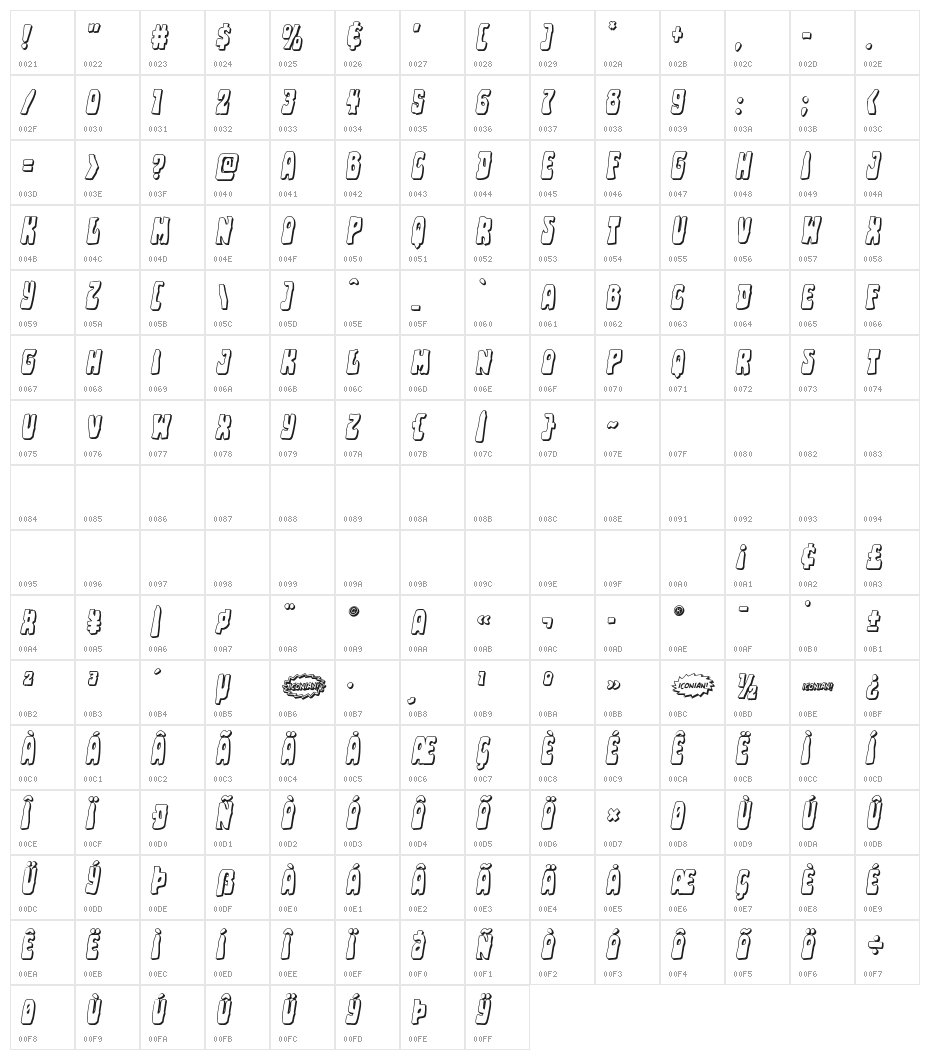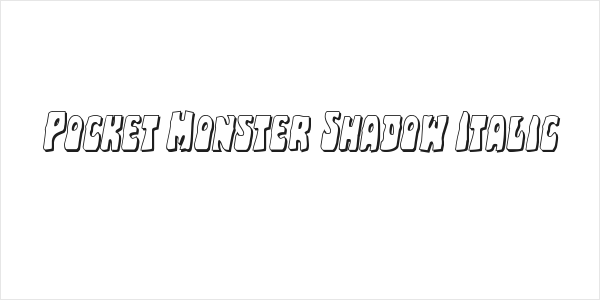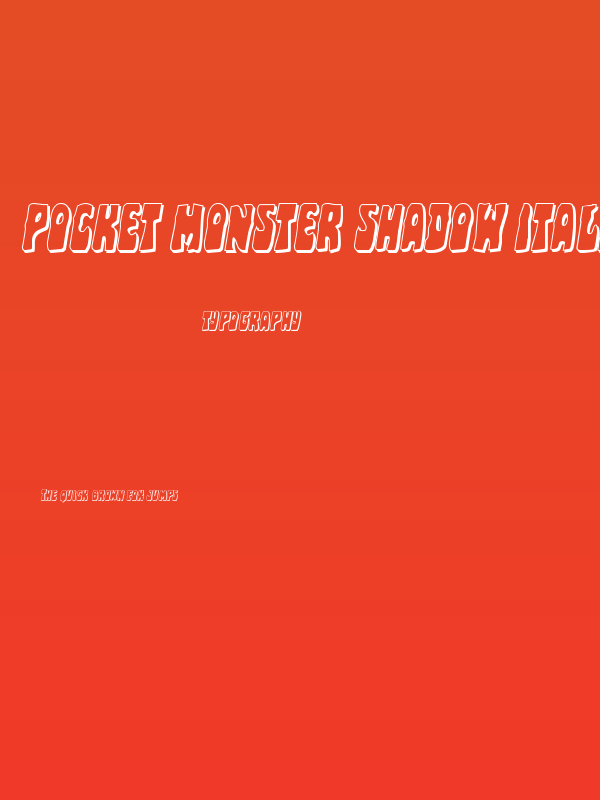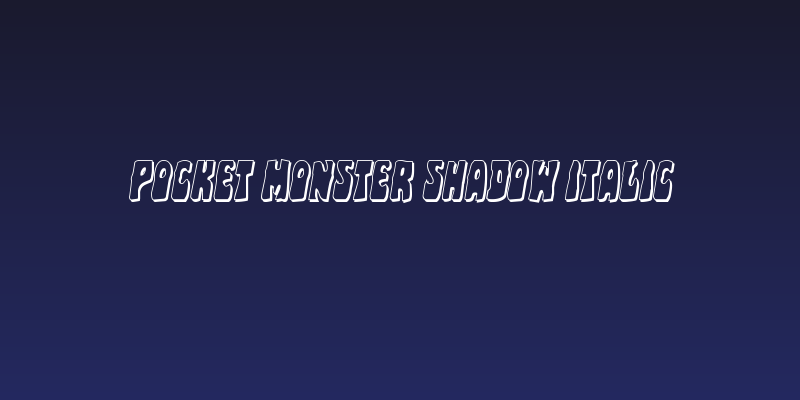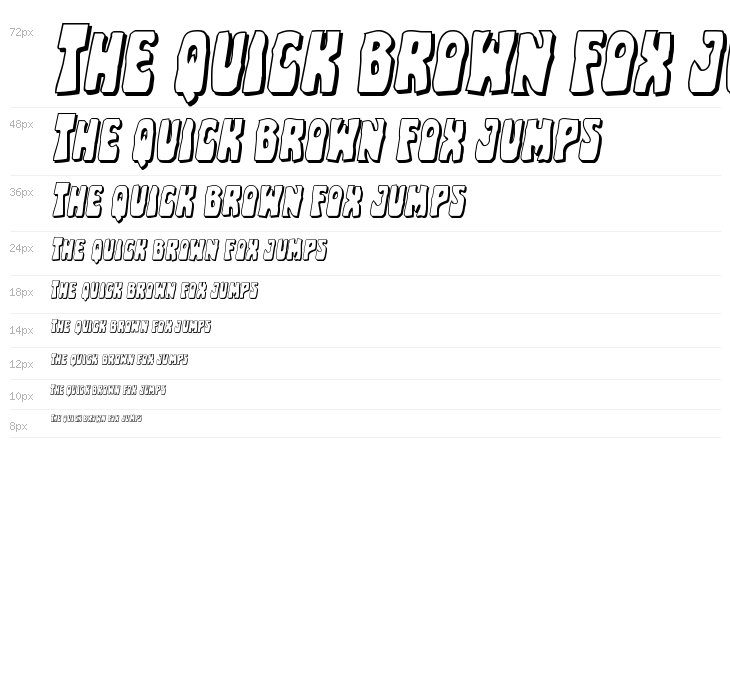
Pocket Monster Shadow Italic Font
Pocket Monster Shadow Italic Description
This font features bold, playful characters with a distinct shadow effect that gives it a three-dimensional appearance. The letters are slightly italicized, adding a dynamic and energetic feel. The uppercase and lowercase characters maintain a consistent style, with rounded edges and a chunky form that enhances readability. Numbers and special characters are designed to match the overall aesthetic, making this font versatile for various creative applications. Its unique shadowing and bold presence make it stand out, ideal for projects that require a fun and engaging typeface.
| Overall Style | Playful, Energetic, Fun |
| Use Case | Headlines, Posters, Branding |
| Proposed Projects | Ideal for children's book covers, playful branding, video game titles, and posters. |